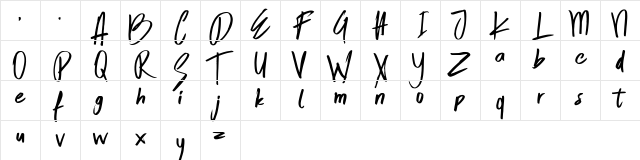
Skytree one
Foundry: Suandana I Pande Made
Designer: Suandana I Pande Made
Design Context for Skytree
Skytree is a composed and adaptable typeface that performs quietly and consistently across a wide range of design contexts.